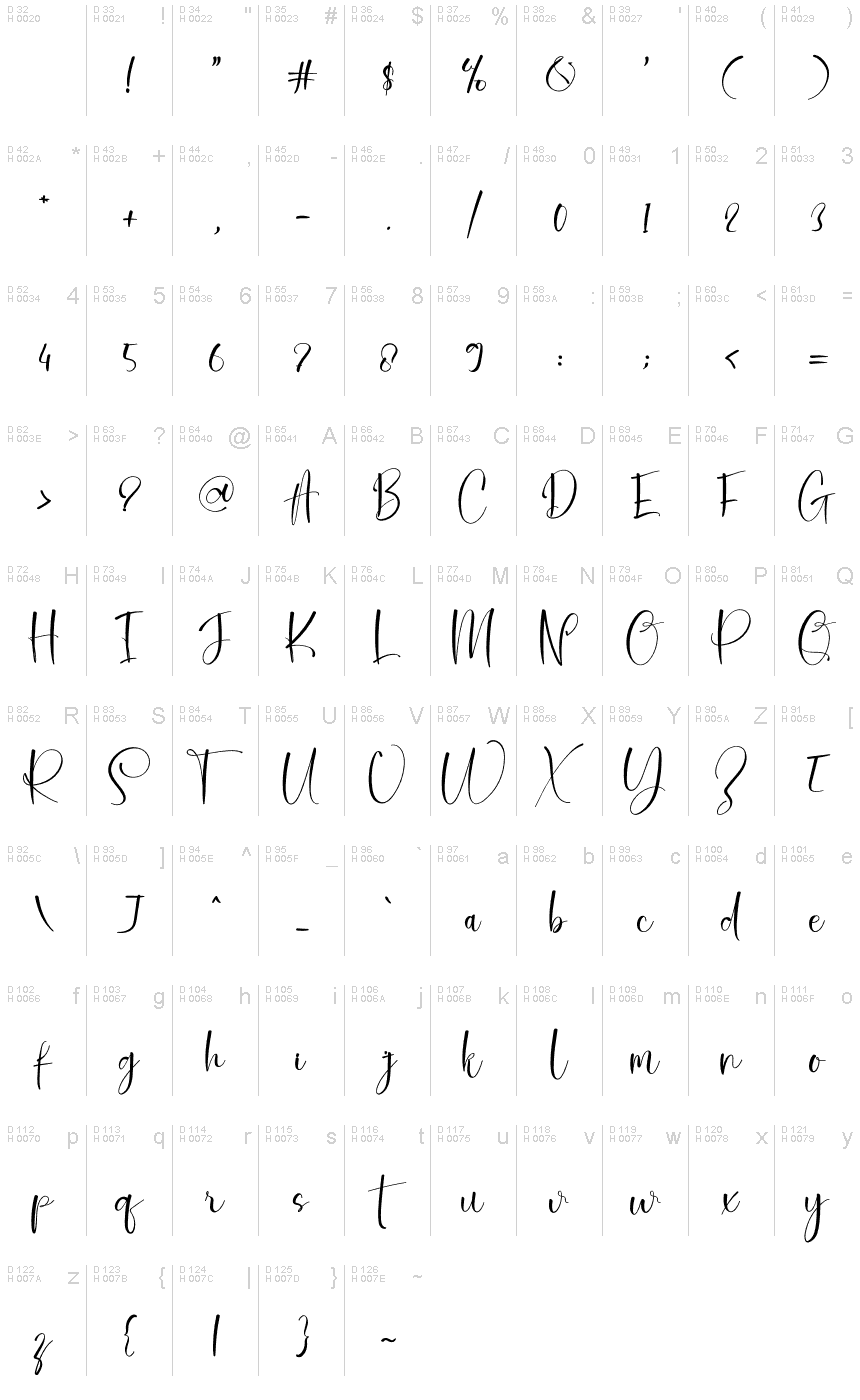
Potrait
Potrait, a creation of Inermedia Studio, flows effortlessly onto the page with its semi-light handwritten style, exuding a blend of casual charm and refined elegance. This font's aesthetic draws on the intimacy and personality of handcrafted script while maintaining a clean readability that beckons designers seeking that human touch without sacrificing professionalism.
With fluid transitions and a subtle weight variance, Potrait is as versatile as it is beautiful, making it an ideal choice for branding projects, invitations, and editorial designs where a tailored touch is desired. The font's graceful lines suggest sophistication and can add an artistic flair to packaging or advertising campaigns. Its legibility at various sizes ensures Potrait remains functional for both digital displays and print media.
Embrace the distinctive character of Potrait to convey stories with warmth and authenticity across your creative endeavors. Whether you're crafting heartfelt correspondence or shaping an identity for a boutique brand, this font holds the potential to elevate your vision with its distinctively approachable style.